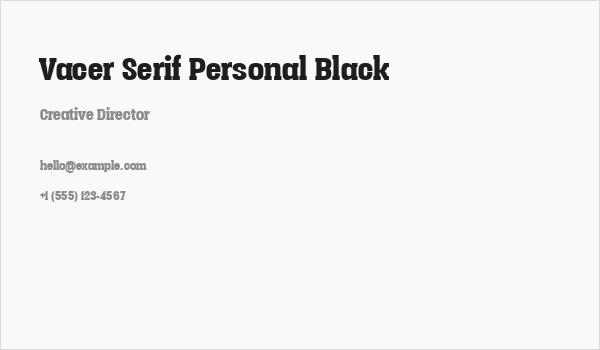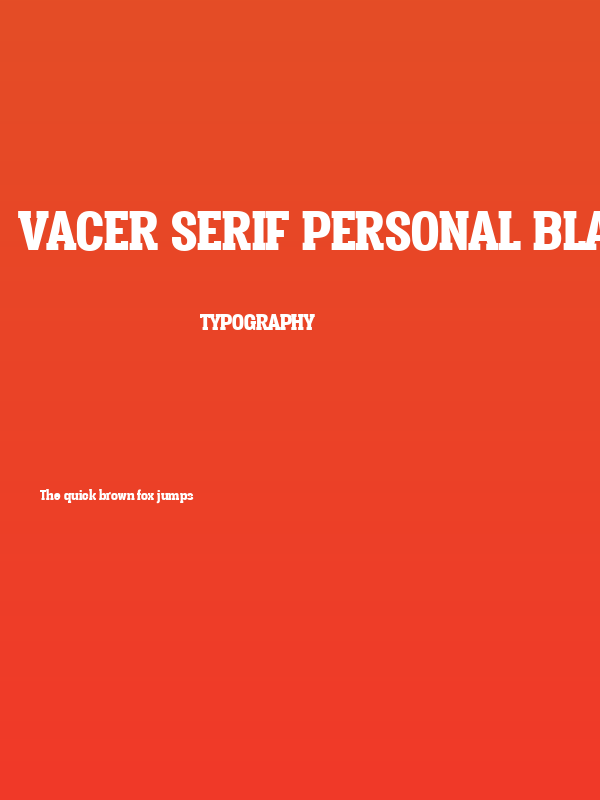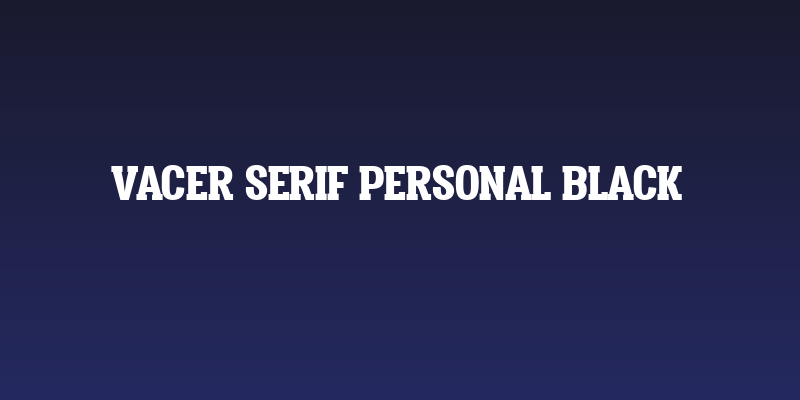
Vacer Serif Personal Black Font
Vacer Serif Personal Black Description
This font features a bold and robust design with strong serifs that give it a commanding presence. The uppercase letters are tall and imposing, while the lowercase letters maintain a consistent weight and style, ensuring readability. The numbers are equally bold, making them stand out clearly. Special characters are designed with the same attention to detail, ensuring they integrate seamlessly with the rest of the typeface. The overall look is both classic and modern, making it versatile for various design needs.
| Proposed Projects | Ideal for headlines, posters, branding, and any project requiring a strong, impactful typeface. |